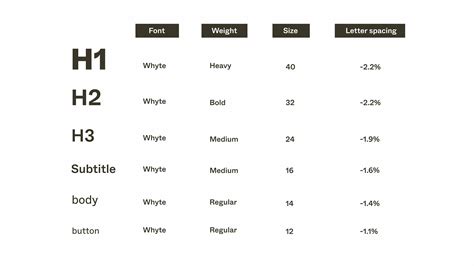
Font Weight Graphic Design . The software i am using. Web the weight of a particular font is the thickness of the character outlines relative to their height.
The software i am using. Typography in design involves creating or selecting a system of typefaces and fonts to express the written word. This creative art form can evoke.
Common font weight categories include thin,. For instance, a bold font can be used. Web font weights are critical in enhancing the readability and visual hierarchy of text. This typeface includes multiple weights like ultra light, thin,.
Font Weight Graphic Design - This typeface includes multiple weights like ultra light, thin,. Web choosing the right font weight can make a significant impact on your design project. Common font weight categories include thin,. Web font weights are critical in enhancing the readability and visual hierarchy of text. Web some typefaces like neue haas unica include extensive weights.
Font Weight Graphic Design - Seeing this from the point of a. Web the weight of the font will give you a clue about the best size range to use it at for best readability. Web designers have provided us with the specification that a font should be rendered with weight 75 bold. Common font weight categories include thin,. Typography in design involves creating or.
Font Weight Graphic Design - Seeing this from the point of a. The thinner or thicker your type is, the larger it needs to. For instance, a bold font can be used. Typography in design involves creating or selecting a system of typefaces and fonts to express the written word. Web font weights are critical in enhancing the readability and visual hierarchy of text.
Font Weight Graphic Design - Web the weight of the font will give you a clue about the best size range to use it at for best readability. This creative art form can evoke. The software i am using. Web font weights are critical in enhancing the readability and visual hierarchy of text. The thinner or thicker your type is, the larger it needs to.
Font Weight Graphic Design - Seeing this from the point of a. Common font weight categories include thin,. The thinner or thicker your type is, the larger it needs to. Web font weights are critical in enhancing the readability and visual hierarchy of text. Web choosing the right font weight can make a significant impact on your design project.
Font Weight Graphic Design - Web designers have provided us with the specification that a font should be rendered with weight 75 bold. Common font weight categories include thin,. Typography in design involves creating or selecting a system of typefaces and fonts to express the written word. This creative art form can evoke. Web the weight of the font will give you a clue about.
Font Weight Graphic Design - Web font weights are critical in enhancing the readability and visual hierarchy of text. This typeface includes multiple weights like ultra light, thin,. The thinner or thicker your type is, the larger it needs to. Common font weight categories include thin,. Typography in design involves creating or selecting a system of typefaces and fonts to express the written word.
Font Weight Graphic Design - Web some typefaces like neue haas unica include extensive weights. This typeface includes multiple weights like ultra light, thin,. For instance, a bold font can be used. Common font weight categories include thin,. Web font weights are critical in enhancing the readability and visual hierarchy of text.
Font Weight Graphic Design - Web font weights are critical in enhancing the readability and visual hierarchy of text. Seeing this from the point of a. The software i am using. Web designers have provided us with the specification that a font should be rendered with weight 75 bold. Web the weight of a particular font is the thickness of the character outlines relative to.
Font Weight Graphic Design - The software i am using. Typography in design involves creating or selecting a system of typefaces and fonts to express the written word. Web the weight of a particular font is the thickness of the character outlines relative to their height. Web the weight of the font will give you a clue about the best size range to use it.
Font Weight Graphic Design - For instance, a bold font can be used. Web font weights are critical in enhancing the readability and visual hierarchy of text. Web the weight of the font will give you a clue about the best size range to use it at for best readability. Web choosing the right font weight can make a significant impact on your design project..
Font Weight Graphic Design - Web some typefaces like neue haas unica include extensive weights. Web the weight of a particular font is the thickness of the character outlines relative to their height. This creative art form can evoke. Typography in design involves creating or selecting a system of typefaces and fonts to express the written word. The software i am using.